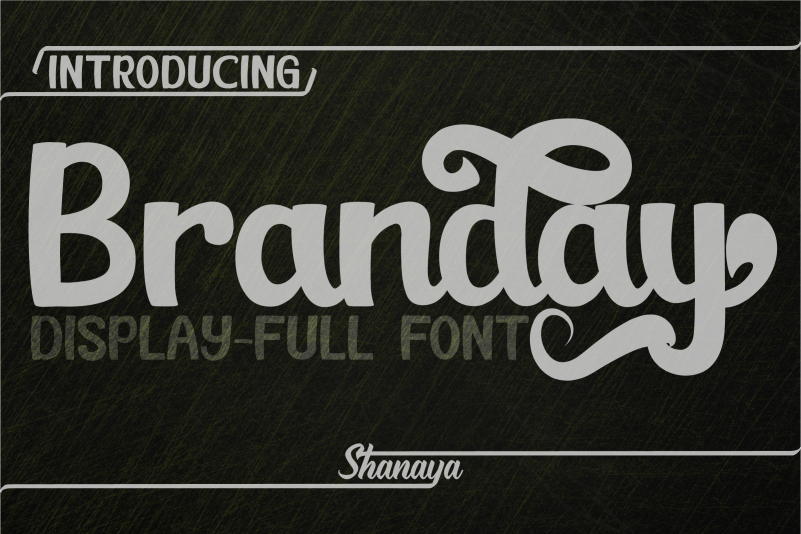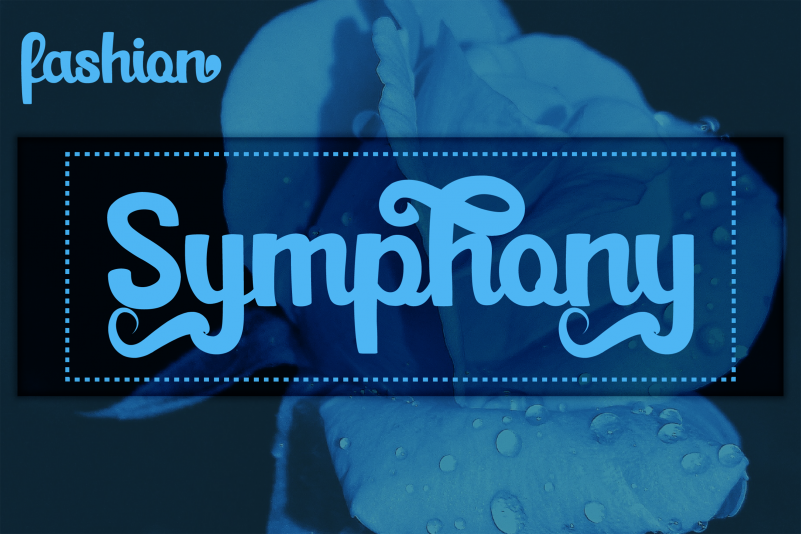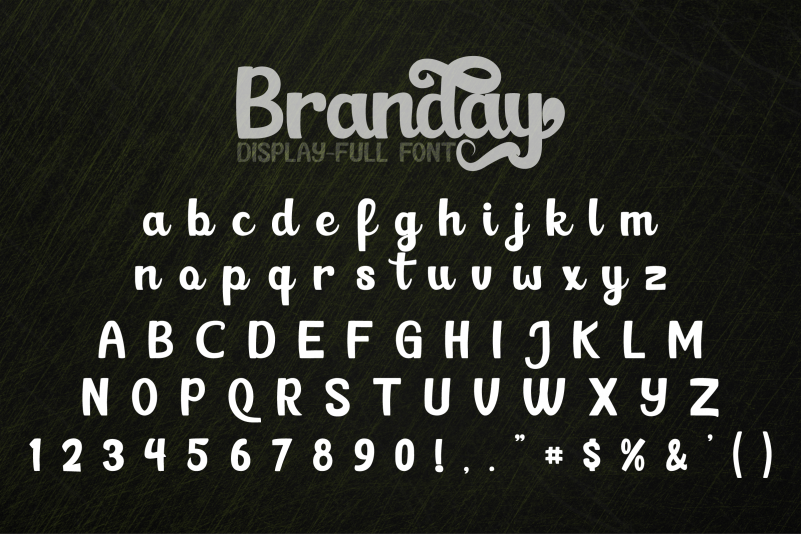
Branday Font
Branday Font. This font is great for logos, posters, clothing, branding, party invitations, and many other cool design projects. Branday comes with a loooot of alternate characters.
-Add more style to each font with OpenType Features – stylistic alternates, lowercase initial form and final form, ligatures, stylistic sets.